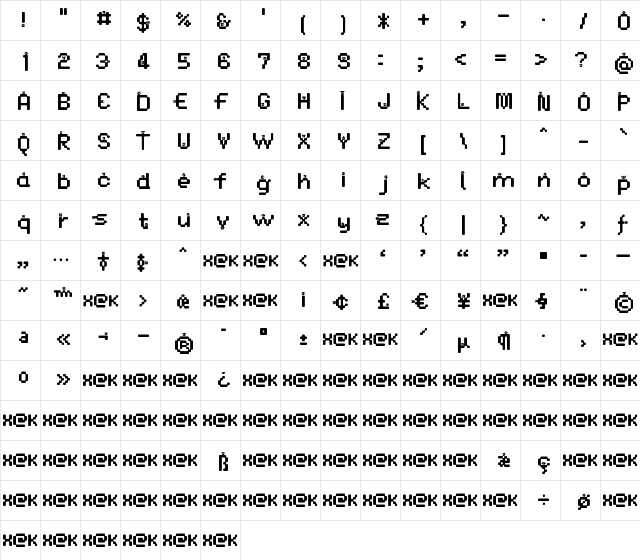
DustMonsters Medium
Design Context for DustMonsters Typeface
DustMonsters takes a measured approach to typography — its balanced proportions and neutral character make it a reliable workhorse for both digital and print work.